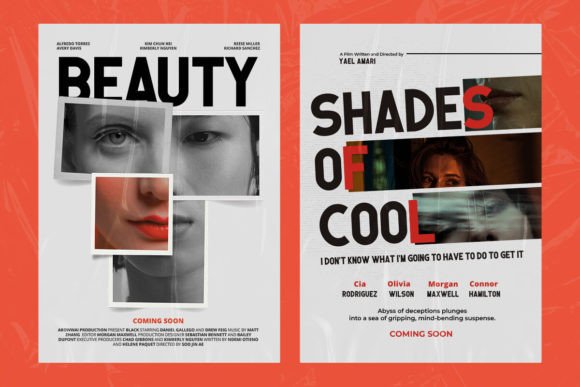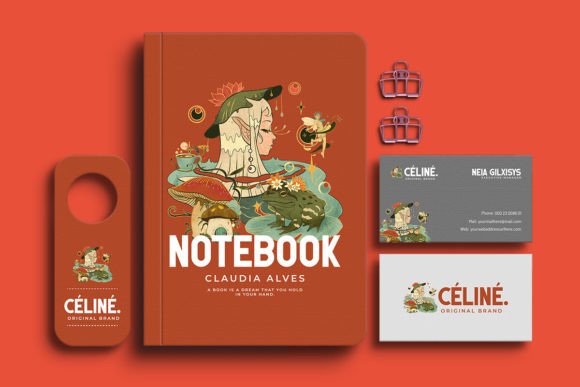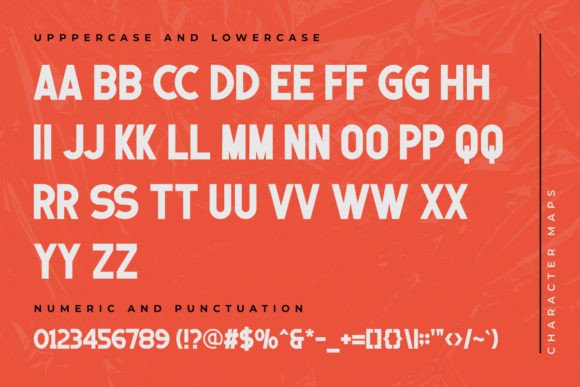
I still remember the frustration of working on a project, hours spent crafting the perfect design, only to be held back by one thing: the font. My client wanted something modern, elegant, and simple, but everything I tried seemed to fall flat. That was until I stumbled upon Francisco Sans Serif Font. It was like a breath of fresh air – clean lines, balanced proportions, and a contemporary aesthetic that instantly elevated my design.
- ✨ **Sleek and Modern Design**: Francisco’s clean lines and balanced proportions make it perfect for a wide range of design projects.
- ✅ **Effortless Readability**: The font’s contemporary aesthetic enhances readability, making it ideal for body text and headings.
- 💻 **Versatility**: Francisco is perfect for branding, logos, web design, and print materials, making it a valuable addition to any designer’s toolkit.
- 🎉 **PUA Encoded**: With PUA encoding, accessing cute glyphs and swashes is a breeze, adding an extra layer of creativity to your designs.
While Francisco Sans Serif Font is an excellent choice, there are a few minor considerations to keep in mind:
- 🤔 **Limited Serif Options**: As a sans serif font, Francisco might not be the best choice for projects requiring a traditional serif look.
- ⚠️ **Glyph Compatibility**: Some glyphs and swashes might not work seamlessly with all design software or platforms.
Exploring Alternatives: Similar Fonts to Francisco
If you’re looking for similar fonts or alternatives to Francisco, consider the following options:
- Montserrat: A sleek and modern sans serif font with a geometric feel, perfect for urban and minimalist designs.
- Open Sans: A clean and friendly sans serif font, ideal for digital and print materials, with a subtle rounded feel.
- Lato: A sans serif font with a warm and elegant feel, suitable for body text and headings, with a range of weights and styles.
- Raleway: A elegant and refined sans serif font, perfect for headings and titles, with a range of weights and styles.
The Story Behind Francisco: Designer Inspiration
Francisco Sans Serif Font was designed with the goal of creating a modern, elegant, and simple typeface that would meet the needs of designers and creatives. Inspired by the clean lines and minimalism of modern design, Francisco’s creator aimed to craft a font that would be both versatile and sophisticated.
Q: What is PUA encoding, and how does it benefit designers?
A: PUA (Private Use Area) encoding allows designers to access a range of glyphs and swashes, adding an extra layer of creativity to their designs. With Francisco, PUA encoding makes it easy to incorporate cute glyphs and swashes into your projects.